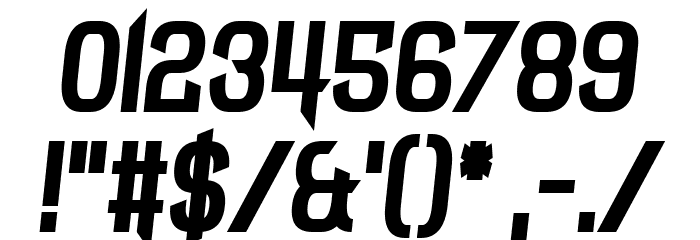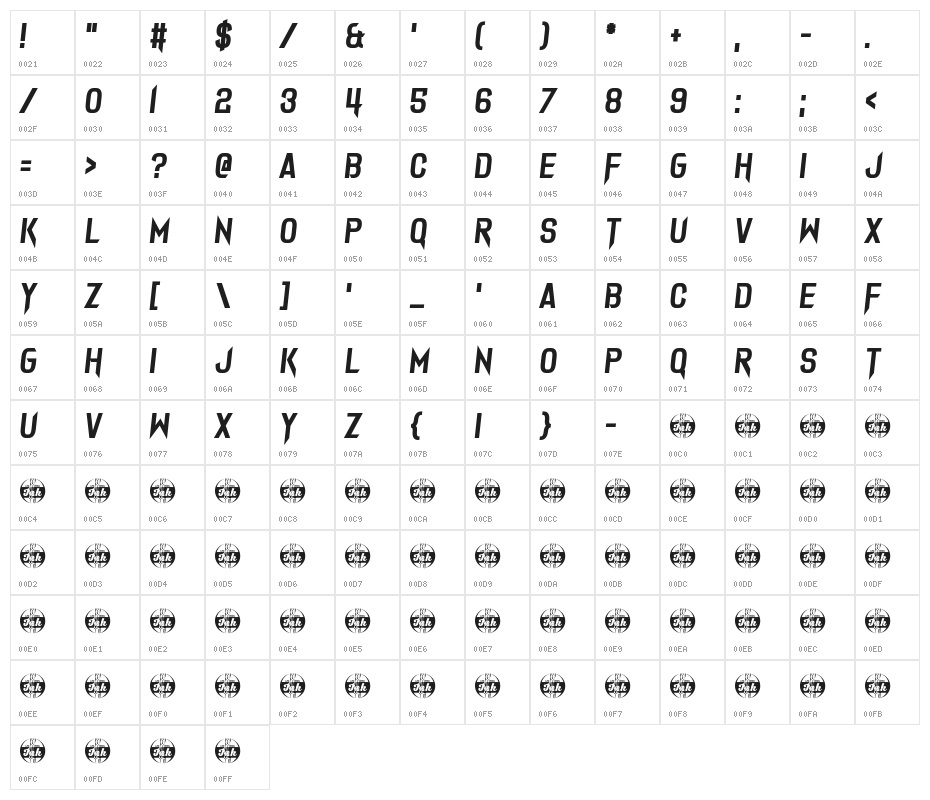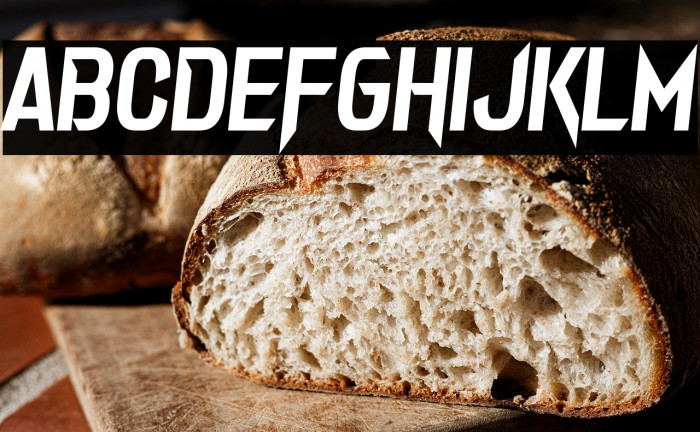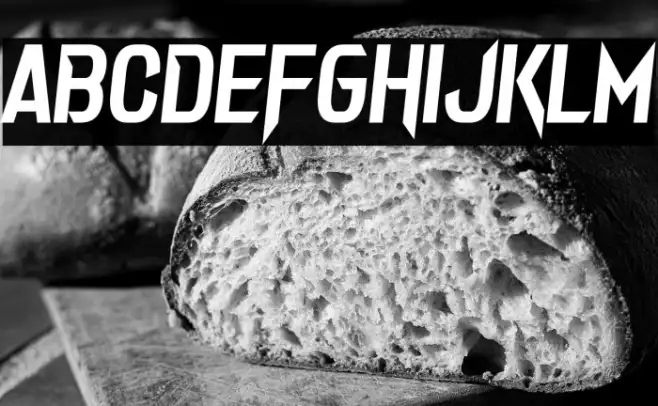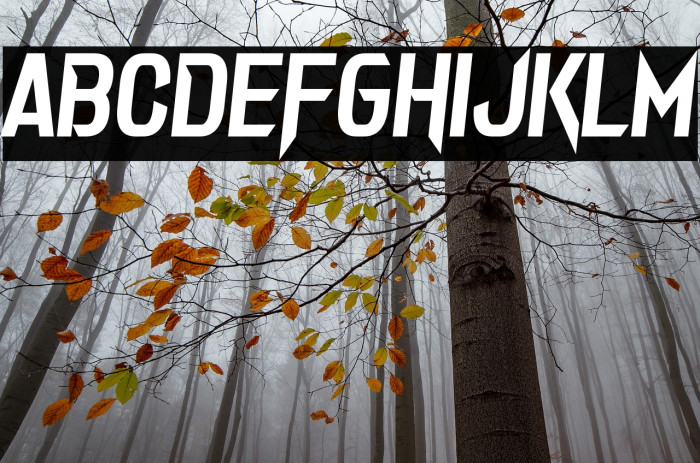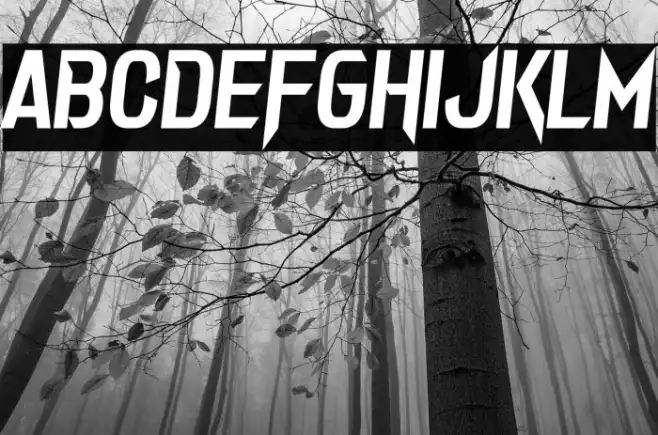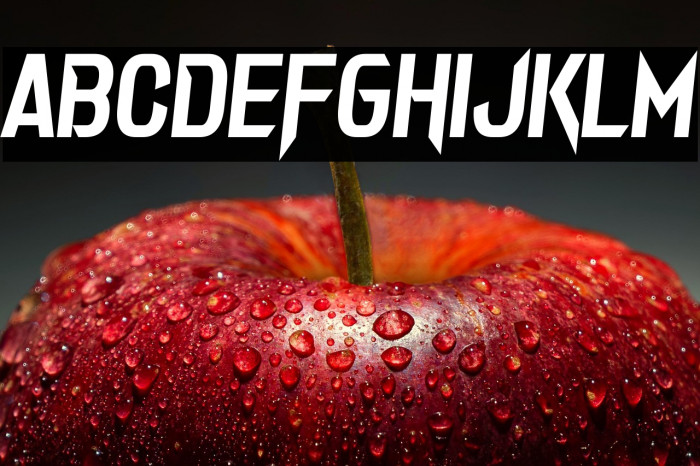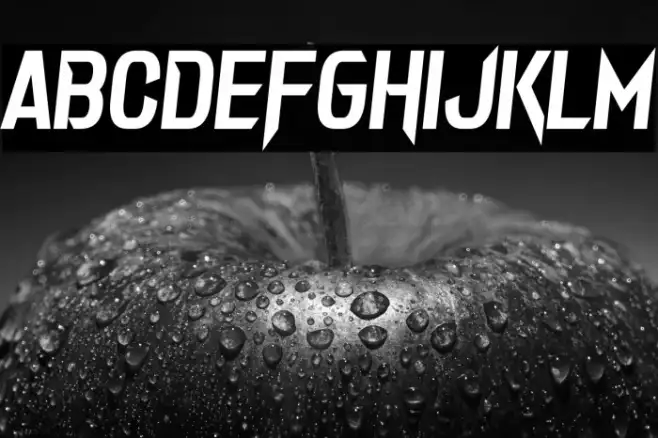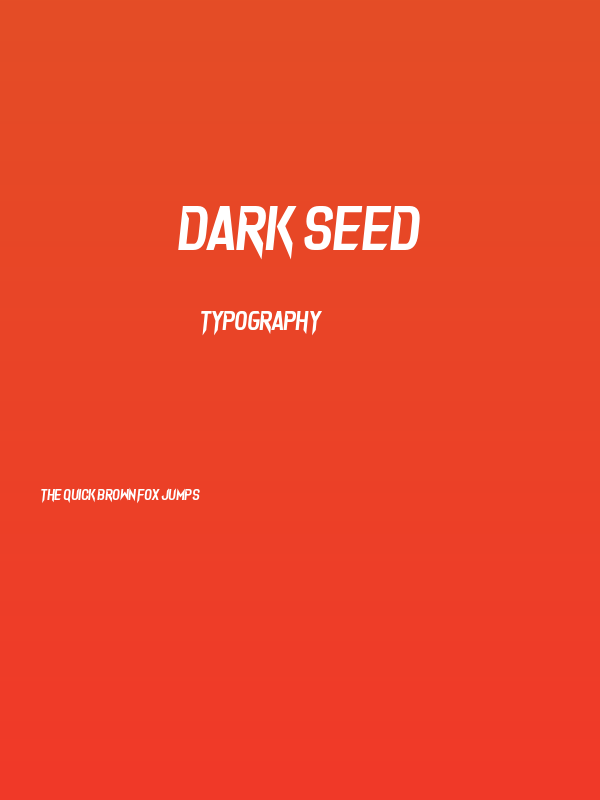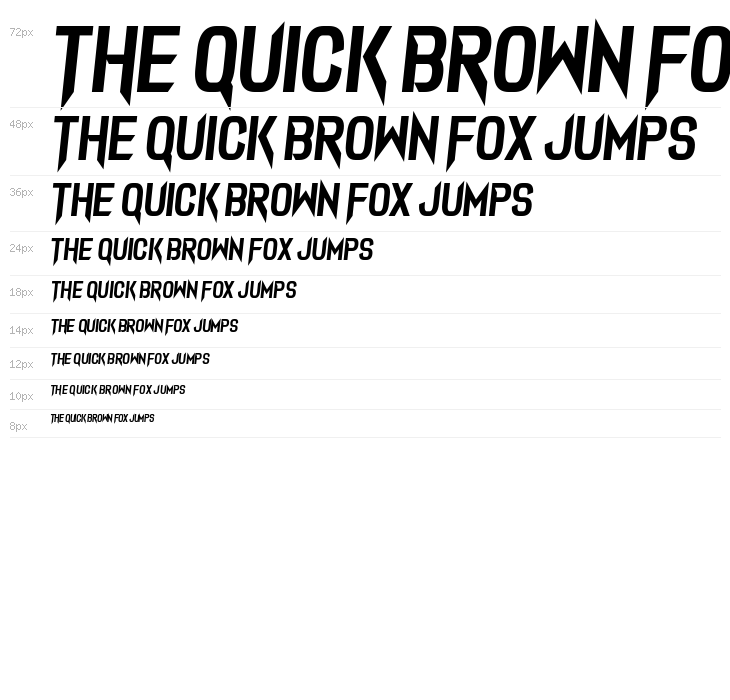
Dark Seed Font
Dark Seed Description
This font exhibits a bold and dynamic style with sharp, angular edges that give it a futuristic and aggressive appearance. The characters are slightly slanted, adding a sense of motion and energy. The uppercase and lowercase letters maintain a consistent design, with the uppercase being more pronounced. The numbers and special characters follow the same angular theme, ensuring uniformity across all glyphs. The font's unique style makes it stand out, making it suitable for attention-grabbing designs.